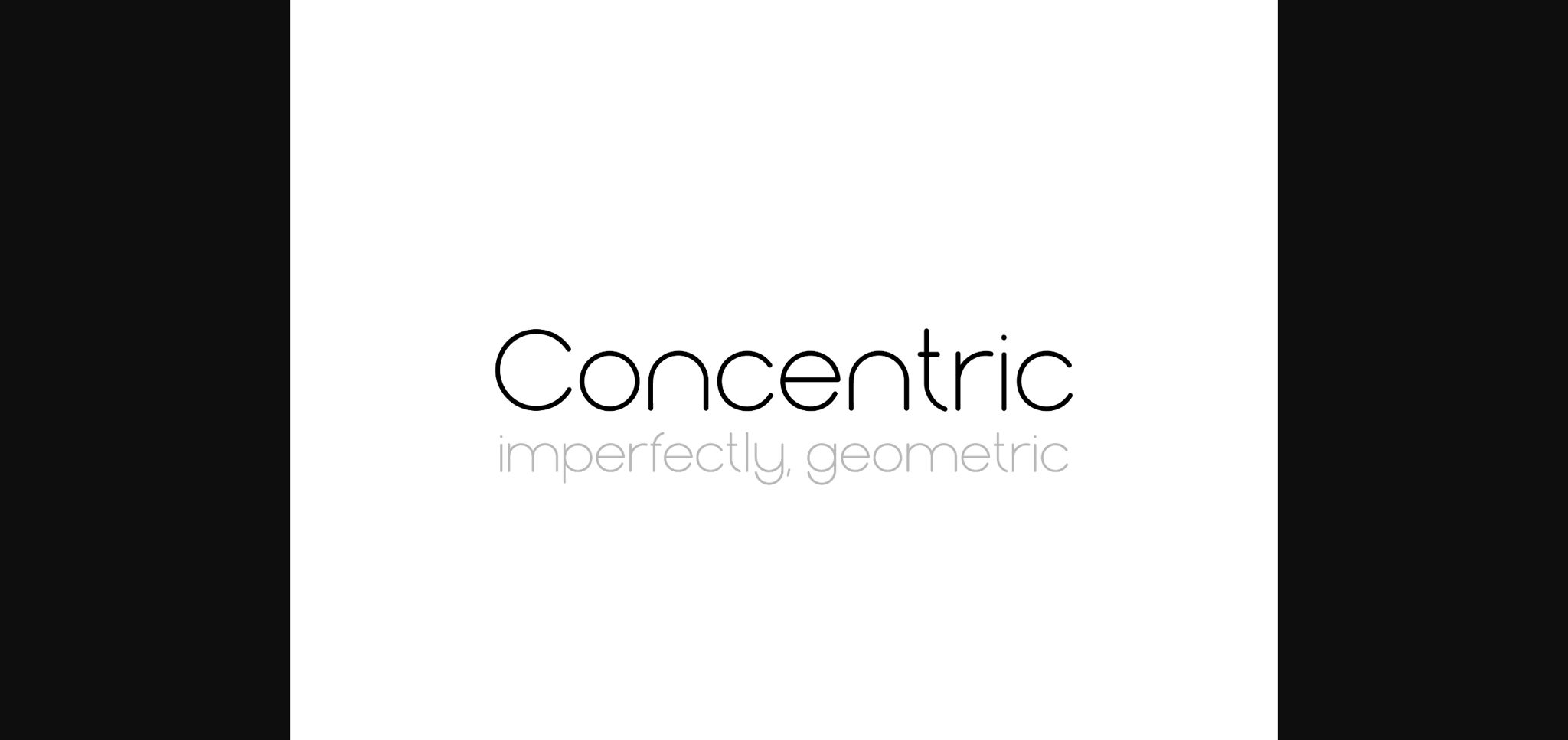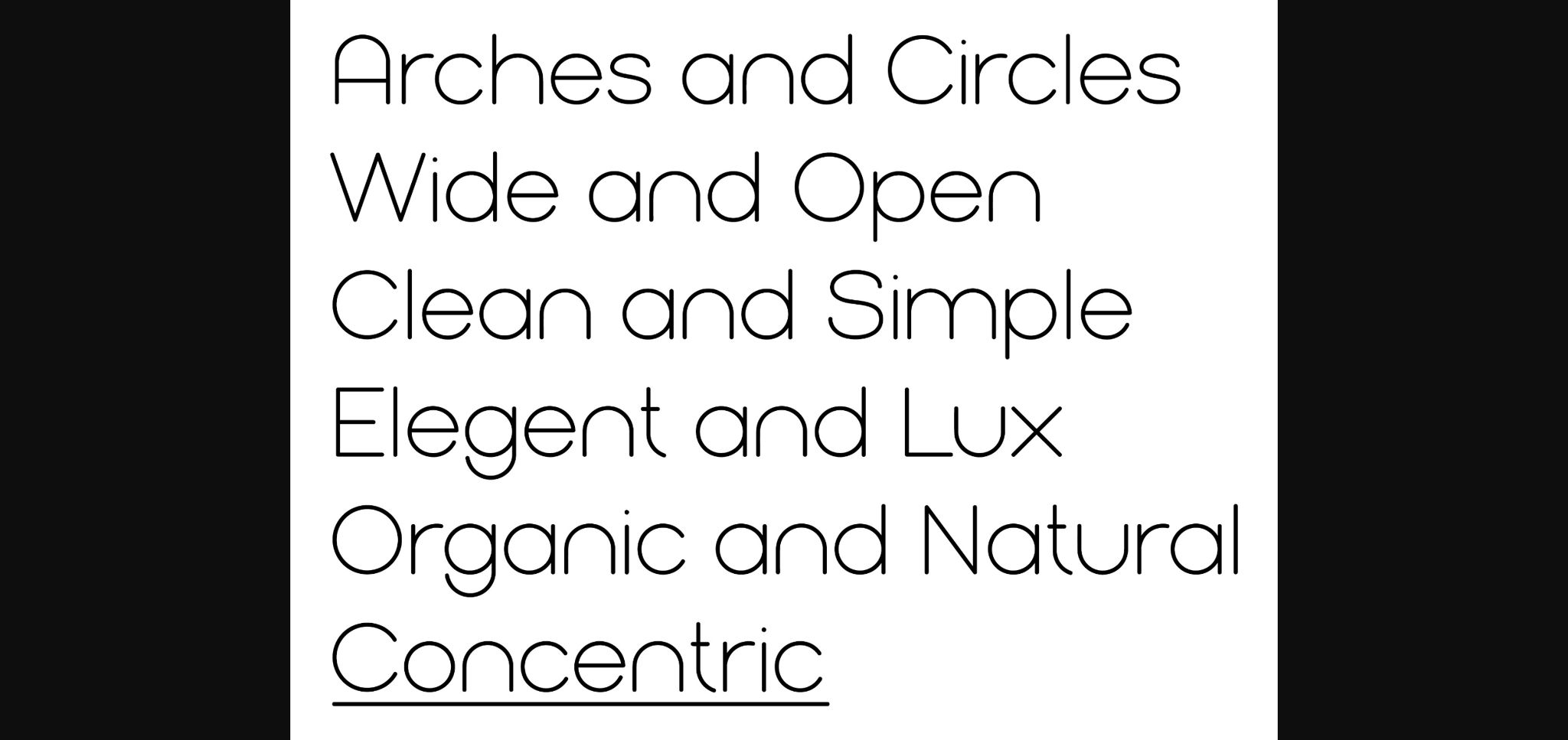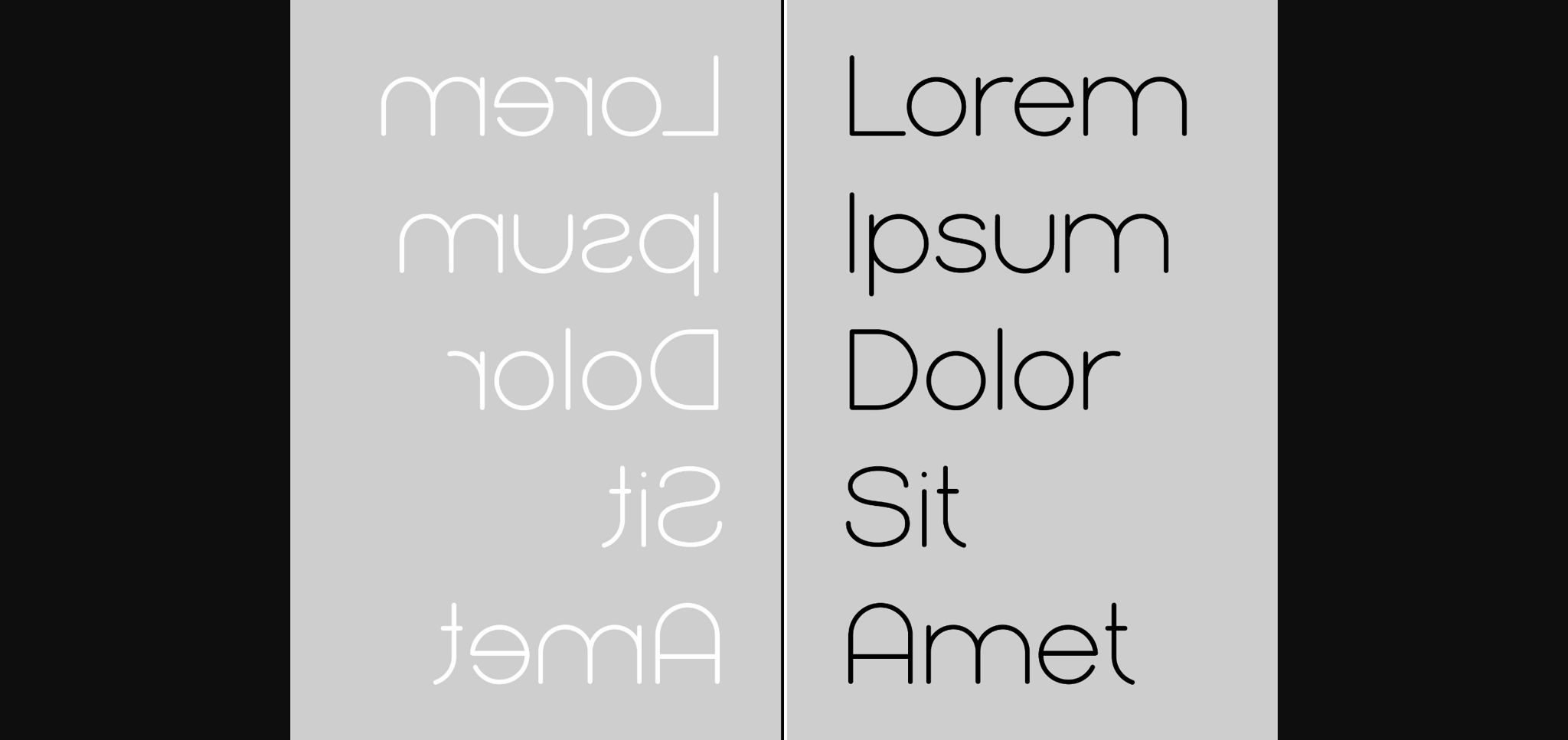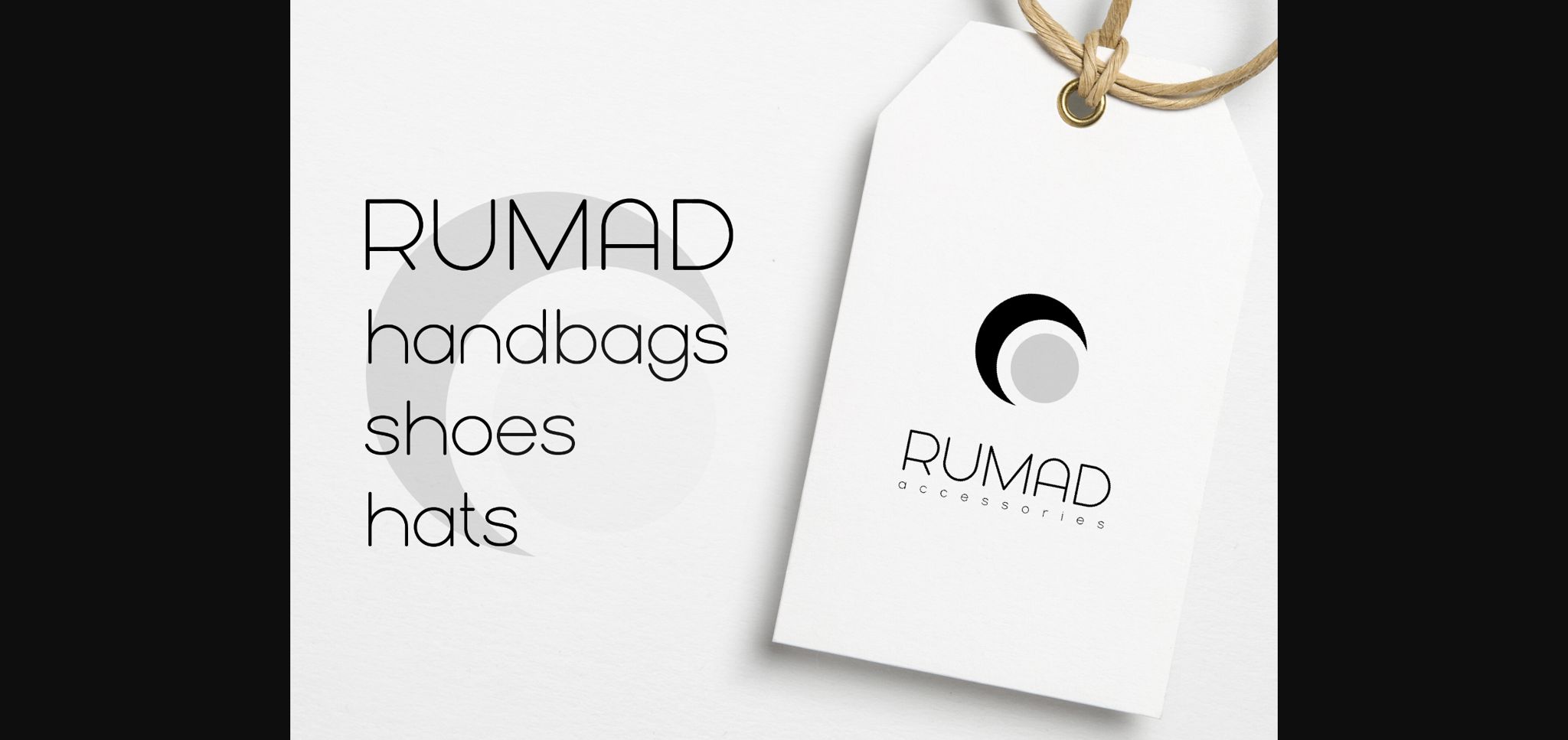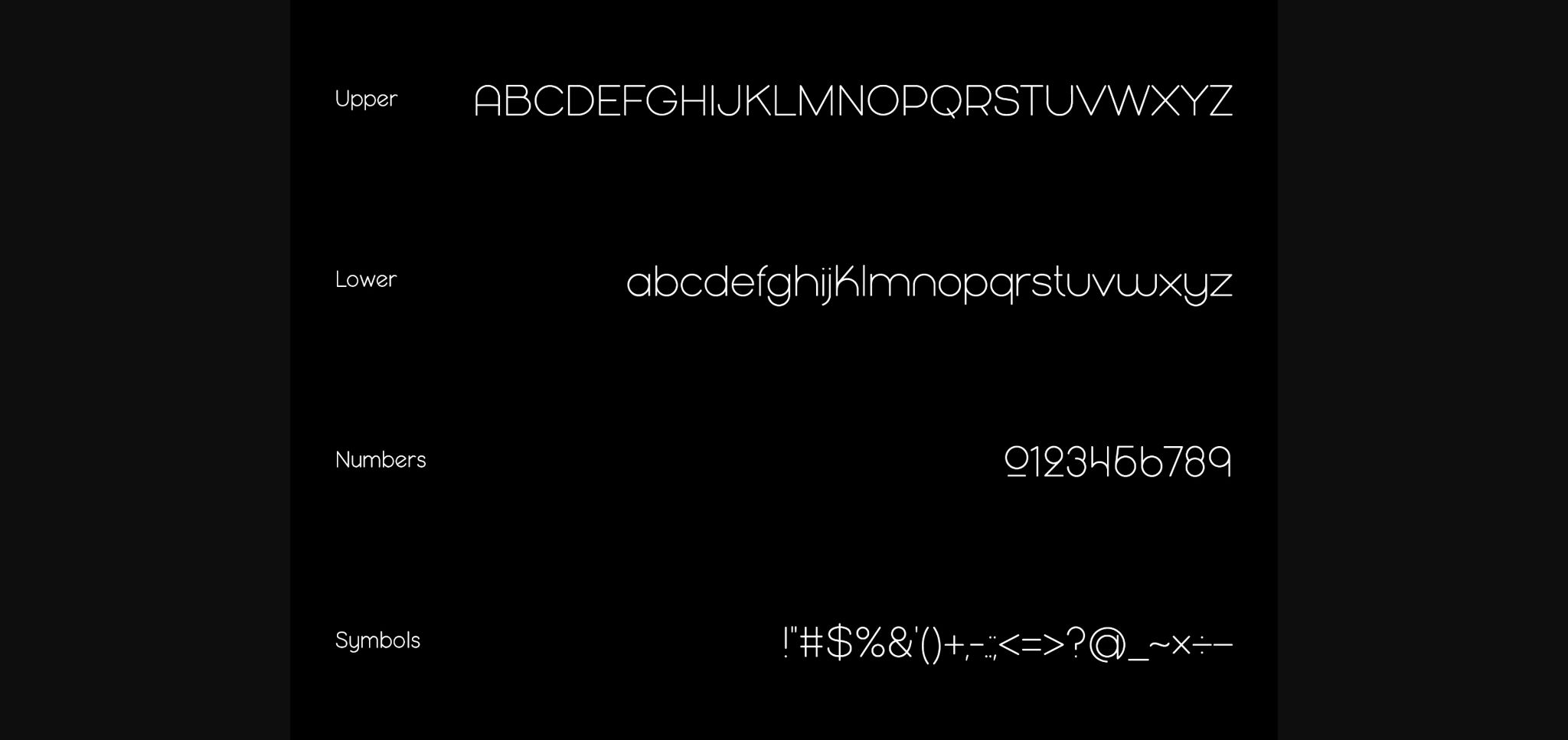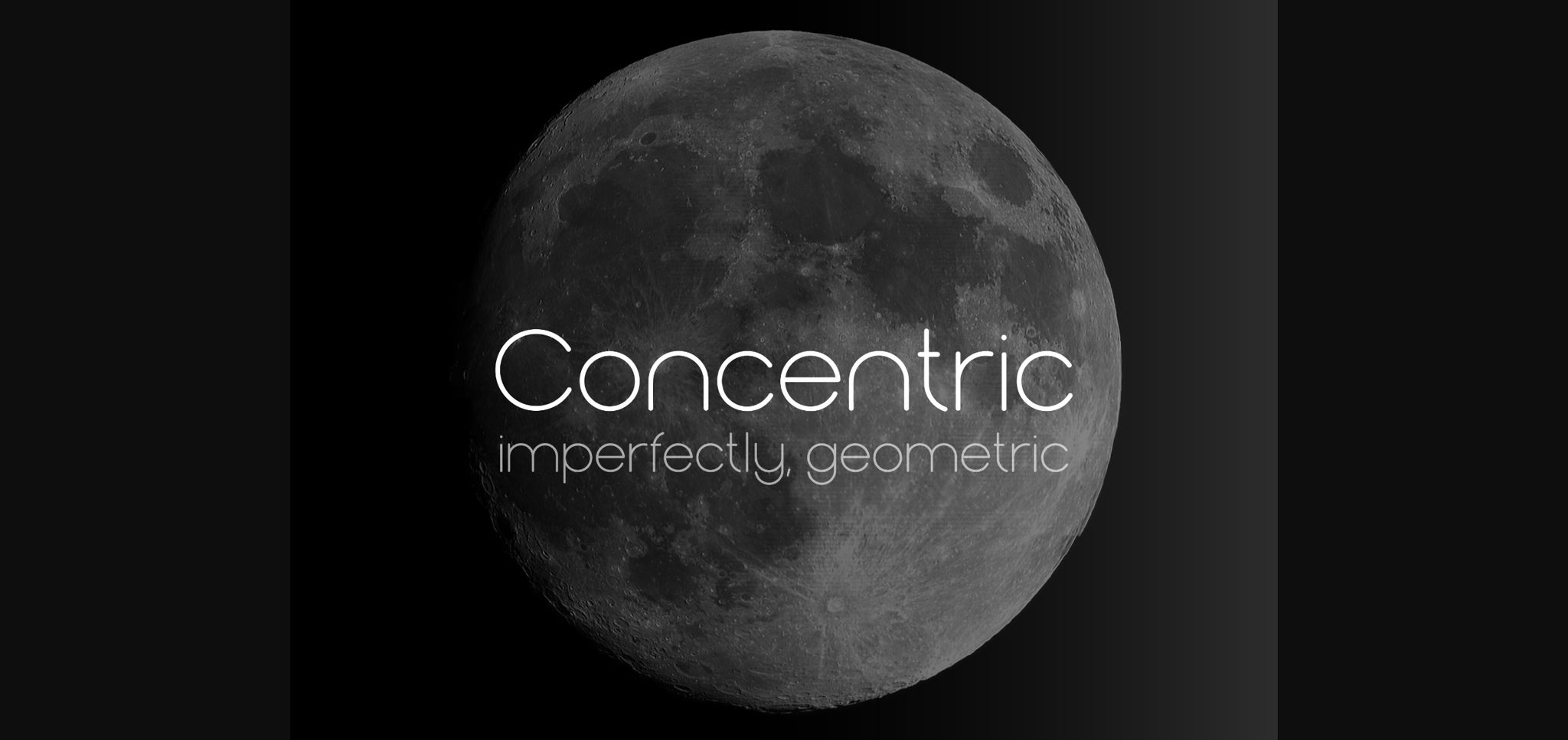
Concentric Font
About Concentric Font
Concentric has clean lines and beautiful arches. This font is clean and perfect for an elegent branding for a cosmetic or fashion company. While it has geometric lines, this font was made by hand for an organic touch.